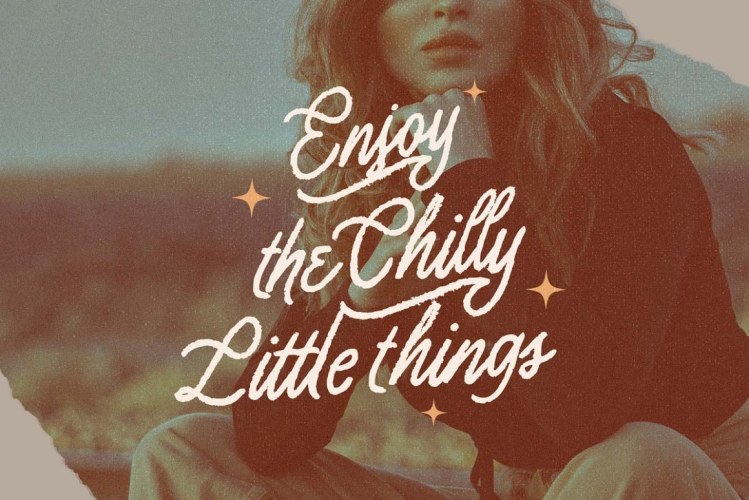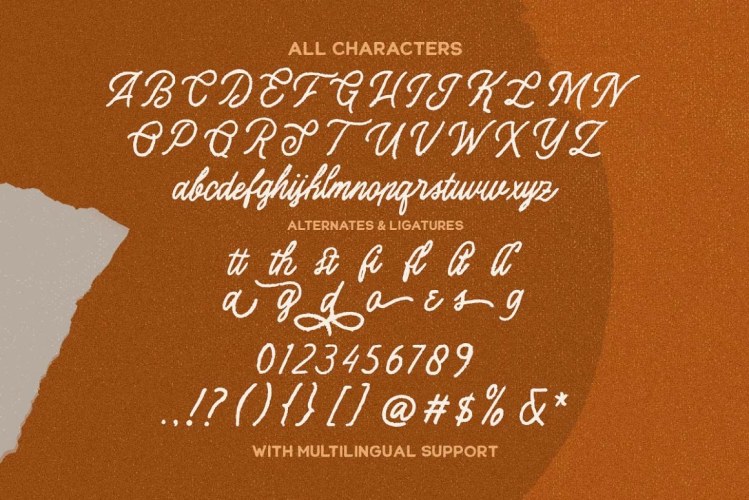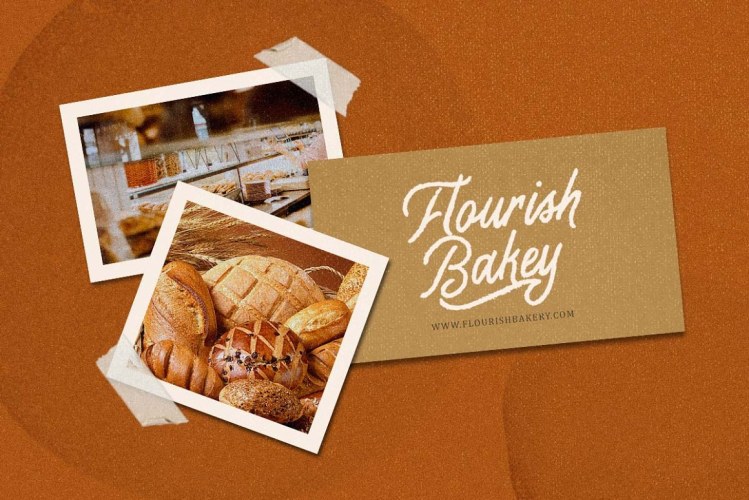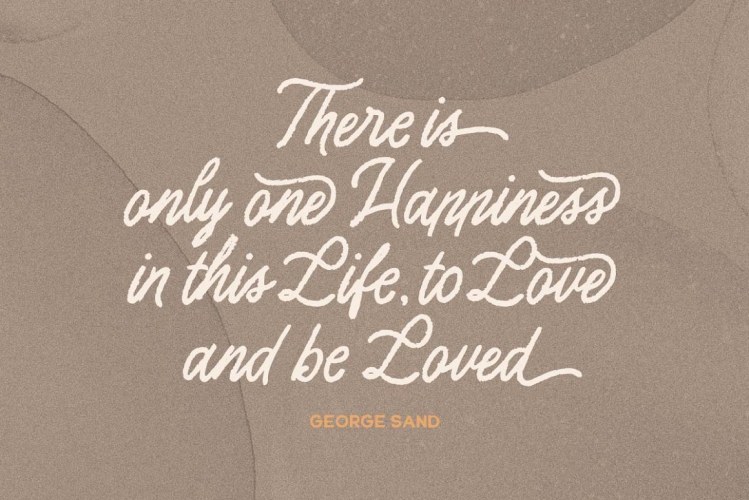
Euphorich – Handwritten Script Font
Euphorich is the organic script font that perfectly captures the casual of a handwritten. With its natural feel and casual, chic style, it’s the perfect choice for branding, logos, and the other various formal forms such as invitations, labels, logos, magazines, books, greeting / wedding cards, packaging, fashion, make up, stationery, novels, labels or any type of advertising purpose where a personal touch is needed.
Euphorich – Handwritten Script Font is a Script And Handwritten font that brings a professional and versatile look to your projects. Euphorich  is the organic script font that perfectly captures the casual of a handwritten.